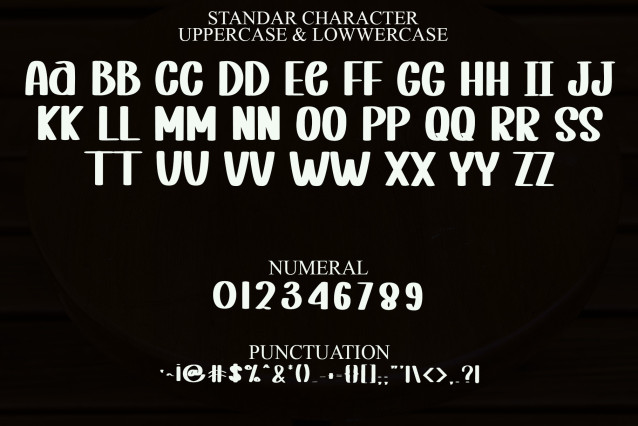
Procreate Brush Font
Procreate Brush Font is a charming sans-serif font imbued with a sense of freshness and casual elegance. Its fluid strokes and organic lines evoke a laid-back vibe, making it perfect for various design projects. Whether used for branding, invitations, or social media graphics, Procreate adds a touch of warmth and personality.